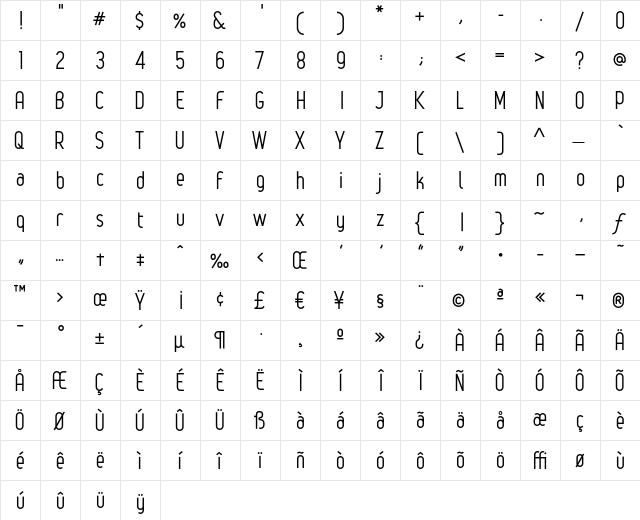
Leger Regular
Design Context for Leger Typeface
Leger offers clean, dependable letterforms without strong stylistic allegiance, making it a practical choice for designers who need flexibility.